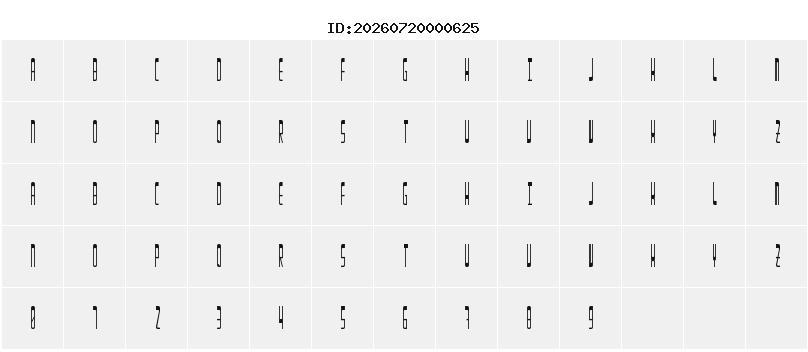
Enila Preview
• Font Name: Enila
• Full Font Name: Enila
• Version: Version 1.00 April 26, 2015, initial release
About Enila.otf
Enila.otf is a modern, elegant sans-serif font designed for ultimate readability and visual harmony. Perfect for branding, headlines, web design, and print materials.